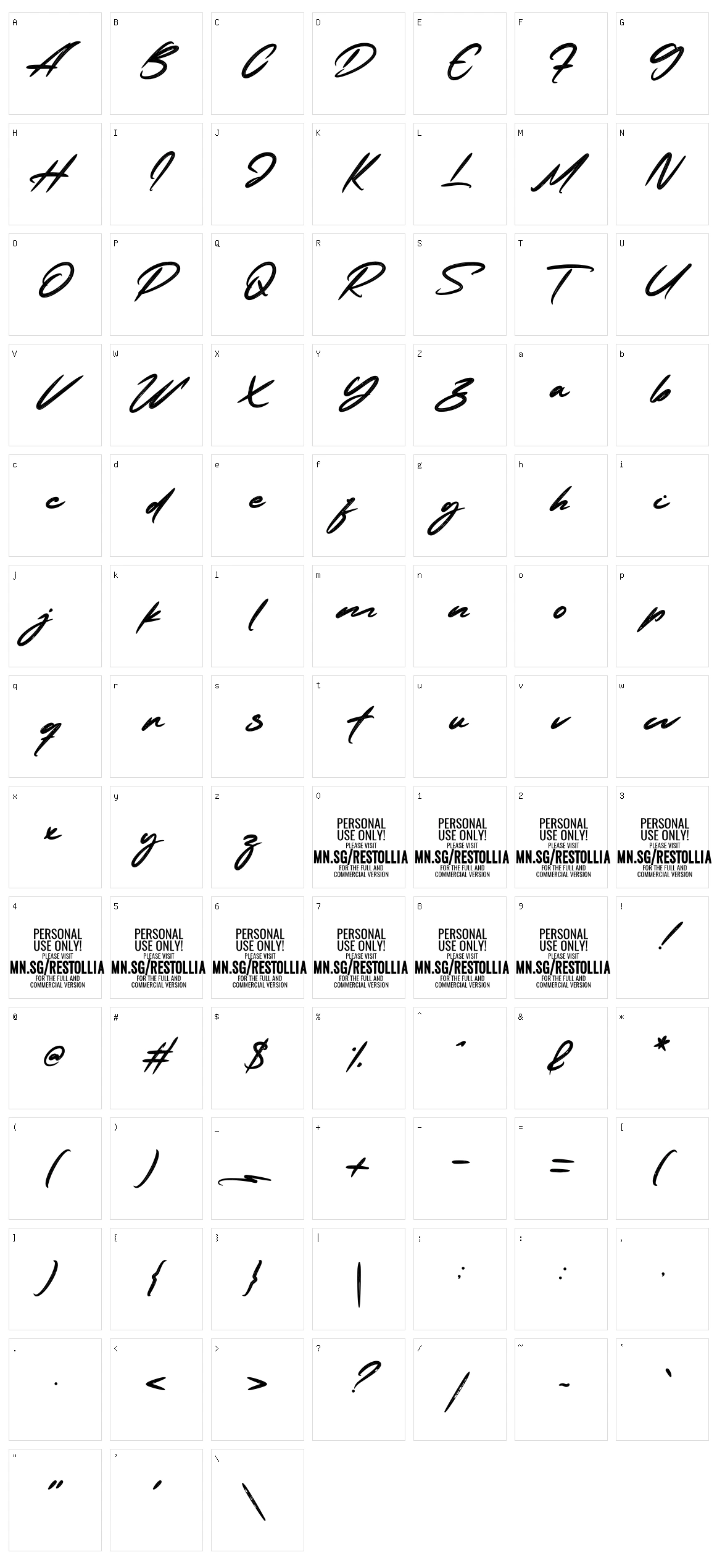
Restollia Script is a flowing script typeface.
Use underscore _ anywhere in a word to make a swash.
Example: Letter_ings
Use multiple underscores to make different swashes.
Example: Hand________written
In a calligraphic style, this handwritten font is the perfect font for a rustic logotype in a cursive style, with its brushed letterforms and vivid personality.
The font is built with advanced OpenType functionality and has a guaranteed top-notch quality, containing stylistic and contextual alternates, ligatures and more features; all to give you full control and customizability.
It has extensive lingual support, covering all Latin-based languages, from Northern Europe to South Africa, from America to South-East Asia.
It contains all characters and symbols you'll ever need, including all punctuation and numbers.